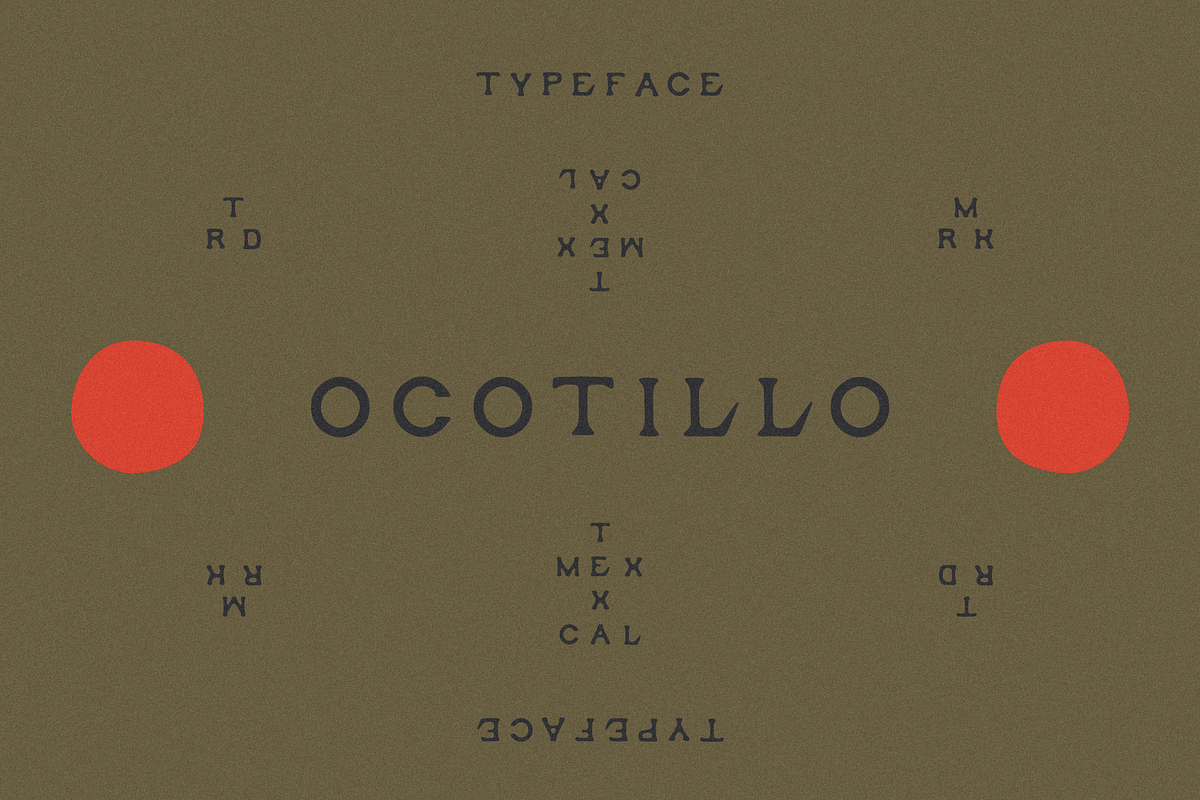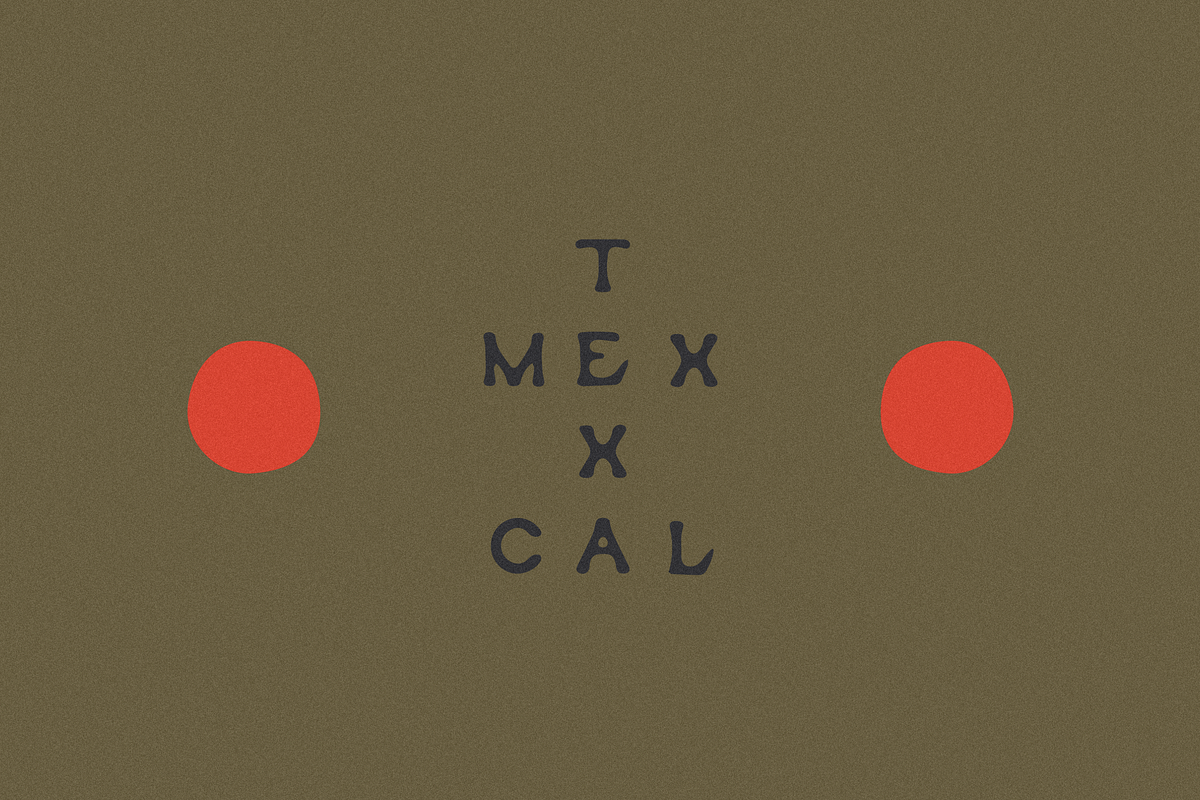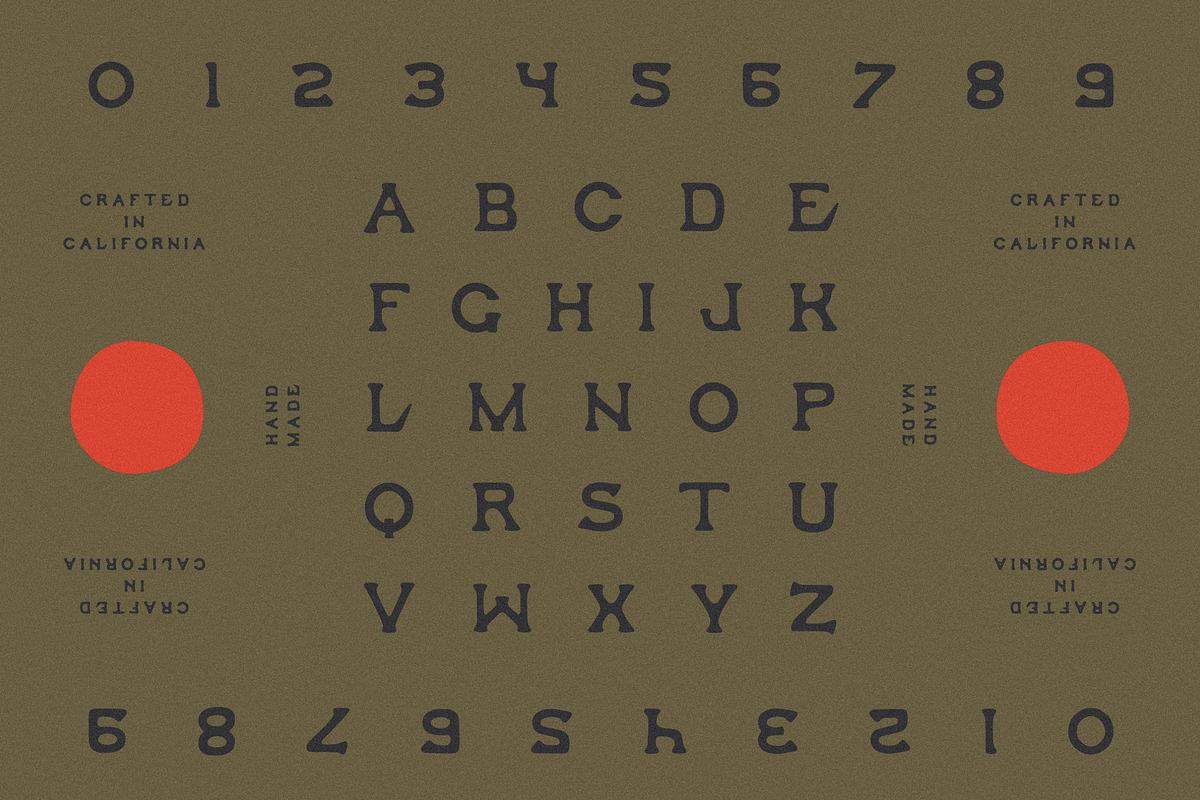
OCOTILLO TYPEFACE
The 6th typeface from the studio draws its influence from the American Southwest and Mexico. Inspired by a slightly rougher take on traditional hand lettering and painted signs with strong tied to the harsh surrounding desert and its cacti.